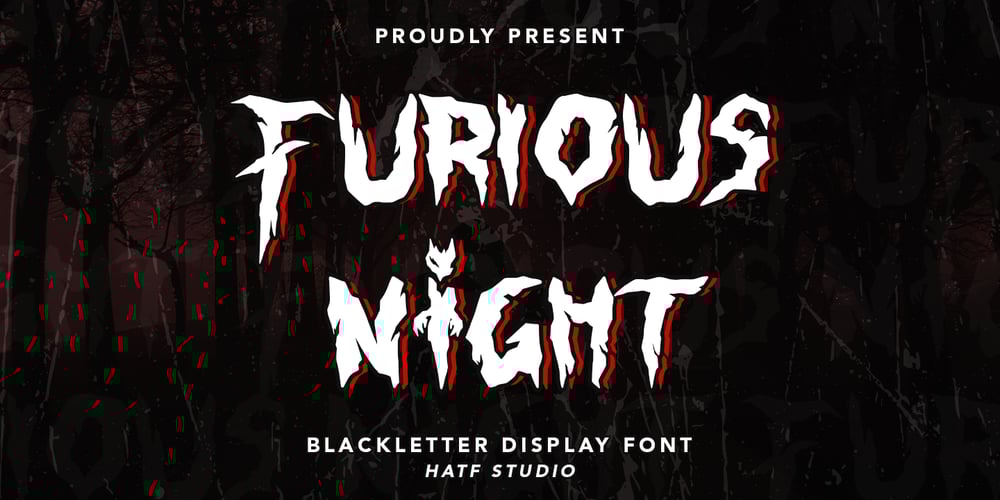
Furious Night Font Family was designed by Asep Rendi and published by Hatftype. Furious Night contains 1 styles and family package options. Furious Night – Blackletter Display Font is a display font that is inspired by gothic and horror style because its shape is very unique and is perfect for any project that you will use with this theme.Furious Night with opentype features such stylistic alternates, stylistic sets & ligatures good for logotype, poster, badge, book cover, tshirt design, packaging and any more.Features :1.Uppercase & Lowercase 2.Multilingual support 3.Number 4.Symbol 5.Punctuation. 6.Extra Dingbat 7.Support in Mac and Windows OS -Support in design application (photoshop, illustrator, and more)There it is! I really hope you enjoy it